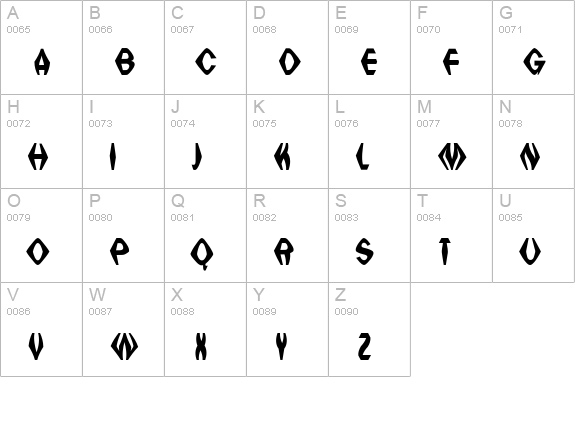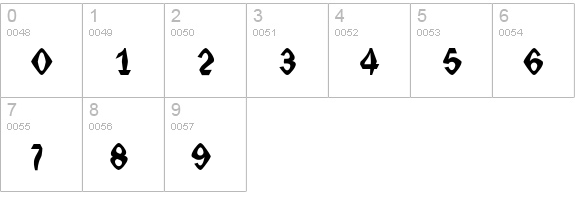
Space Spider Font Details
Introducing Space Spider font, a captivating and futuristic typeface that will transport your designs to new dimensions. With its sleek and modern appearance, this font is perfect for projects that require a touch of otherworldly elegance. Space Spider font features angular and geometric letterforms, reminiscent of the intricate webs spun by its celestial namesake. Its clean lines and sharp edges make it highly legible, ensuring that your message will be conveyed with clarity and impact. This font is not only visually stunning but also highly versatile. Whether you are creating a sci-fi movie poster, designing a cutting-edge technology website, or crafting an out-of-this-world logo, Space Spider font will add a touch of cosmic sophistication to your creations. But what sets Space Spider font apart is not just its stunning aesthetics, it is also its accessibility. This font is freely available to download at FontsMarket.com, allowing designers, artists, and enthusiasts alike to access this extraordinary typeface without any restraints. Embracing the spirit of exploration and innovation, Space Spider font invites everyone to unleash their creative potential and venture into uncharted design territories. So why wait? Embrace the boundless possibilities of Space Spider font and elevate your designs to new heights. Download this mesmerizing typeface today at FontsMarket.com and let your imagination take flight.